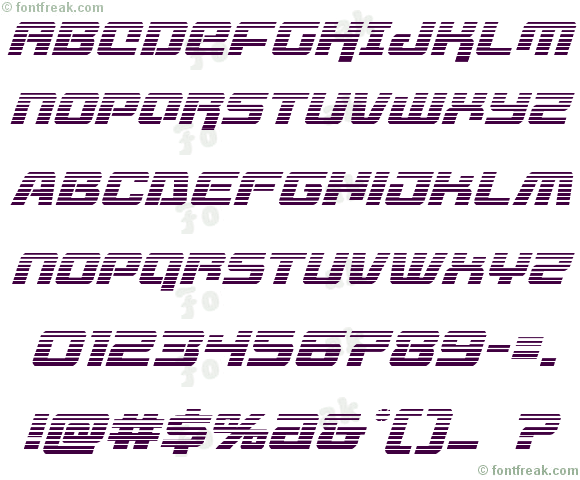
Livewired Laser Italic
About Livewired Laser Italic
Livewired Laser Italic, designed by Daniel Zadorozny, is a striking display font that embodies modernity and dynamism. This typeface falls within the decorative category, showcasing a bold and condensed style that captures attention. Its unique italicization adds a sense of forward motion, enhancing its contemporary appeal. The font features a combination of 3D and chrome effects, characterized by sharp, angular forms and a semi-bold stroke weight, lending it a strong visual presence. The design incorporates halftone elements and gradient fills, creating a sense of depth and texture that sets it apart from standard typefaces.
This versatile font is ideal for a variety of applications. Its eye-catching design makes it perfect for movie posters, where it can convey excitement and energy. Additionally, it works well in branding for tech startups, providing a futuristic touch to logos and marketing materials. Livewired Laser Italic is also suitable for event promotions and music festivals, where its vibrant character can draw in a crowd. Small business owners can utilize it for signage and advertisements, ensuring their messages stand out in a competitive market.
Targeted toward graphic designers, content creators, and small business owners, this font offers a unique solution for those looking to infuse their projects with a sense of innovation and style. The Livewired Laser Italic font free download allows users to experiment with this exceptional typeface without any financial commitment, making it accessible for various creative endeavors.
What truly sets Livewired Laser Italic apart is its ability to blend futuristic aesthetics with practicality. Its distinctive visual elements and bold presence ensure that any project utilizing this font will leave a lasting impression, making it a valuable addition to any designer's toolkit.